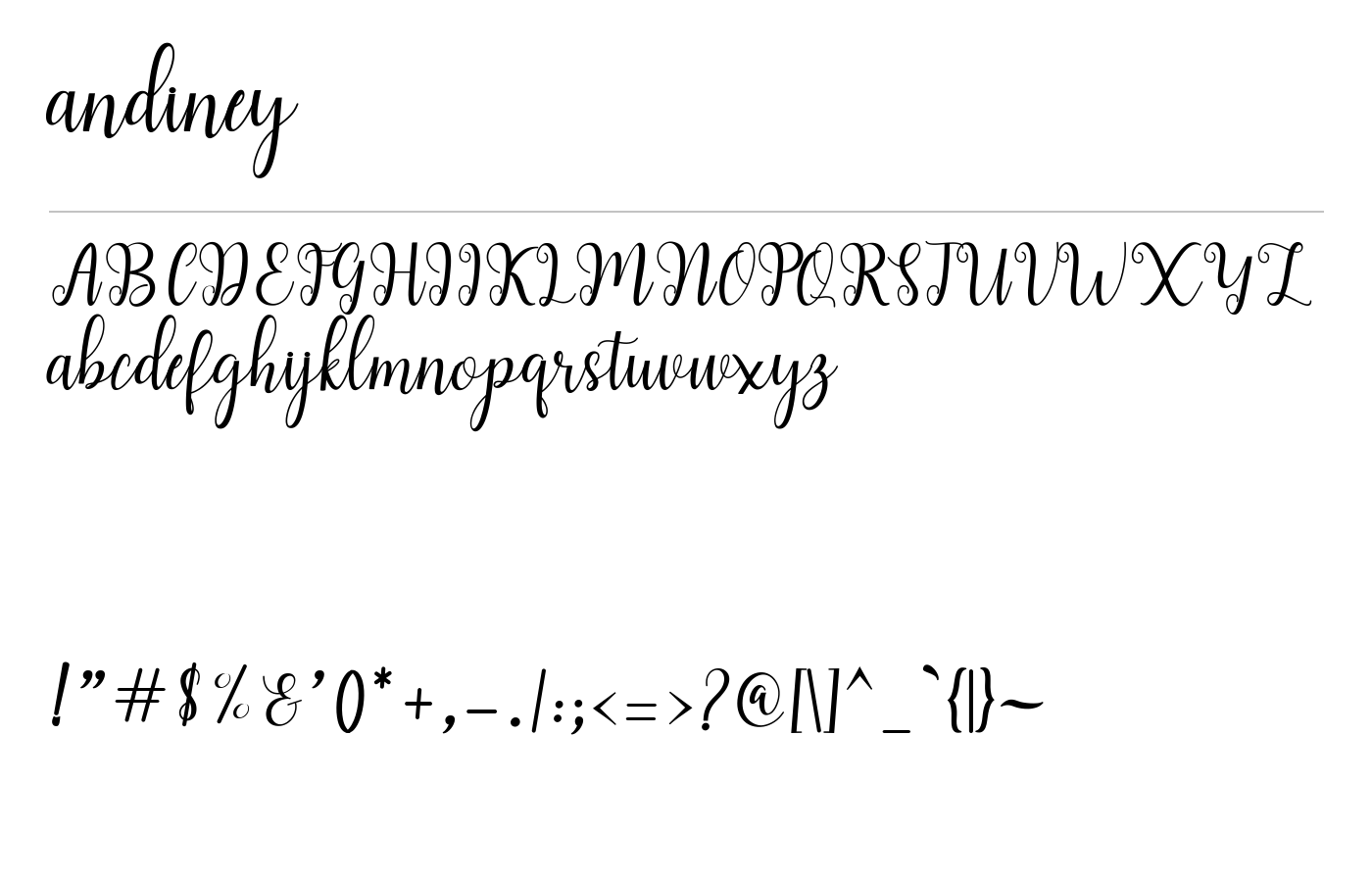
Andiney is an elegant script font featuring graceful, flowing letterforms with a high contrast between thick and thin strokes, giving it a refined and sophisticated appearance. Its delicate curves and gentle flourishes make it ideal for luxury branding, wedding invitations, and stylish editorial projects where a touch of charm and personalization is desired. This font works beautifully in headlines and decorative accents, adding a stylish, romantic feel to any design.
andiney Font